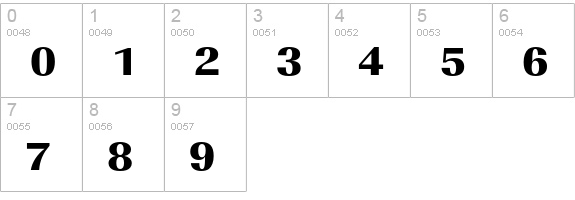
URWImperialTOTUltBolEW Font Details
URWImperialTOTUltBolEW is a striking and elegant font that exudes sophistication and class. This font features bold and unique letterforms that command attention and make a statement. With its timeless appeal and versatility, URWImperialTOTUltBolEW is perfect for a wide range of design projects, from branding to packaging to editorial design. The best part? URWImperialTOTUltBolEW is available for free download at FontsMarket.com. This means you can easily access and use this stunning font for your personal and commercial projects without any cost. Don't miss out on this opportunity to elevate your designs with URWImperialTOTUltBolEW's exceptional style and charm. Download it now and add a touch of sophistication to your next project.